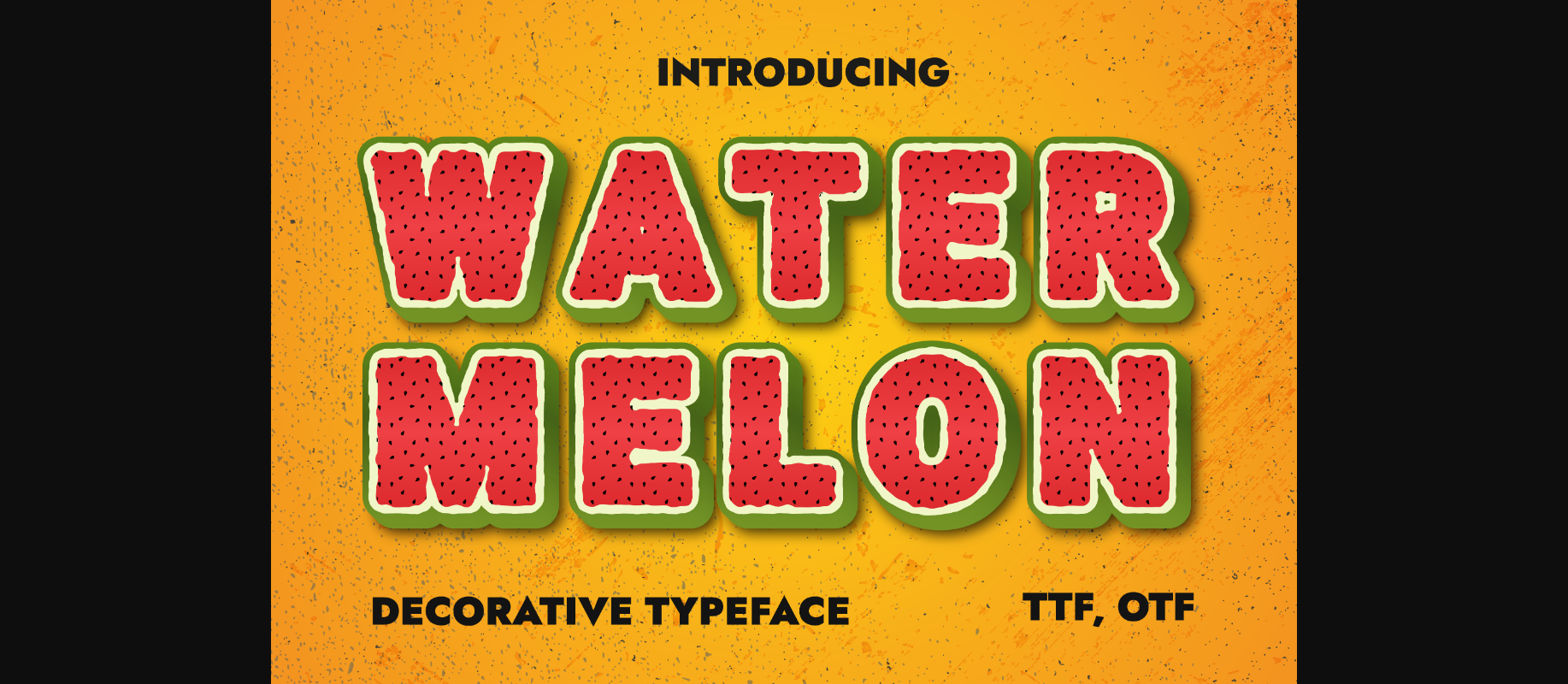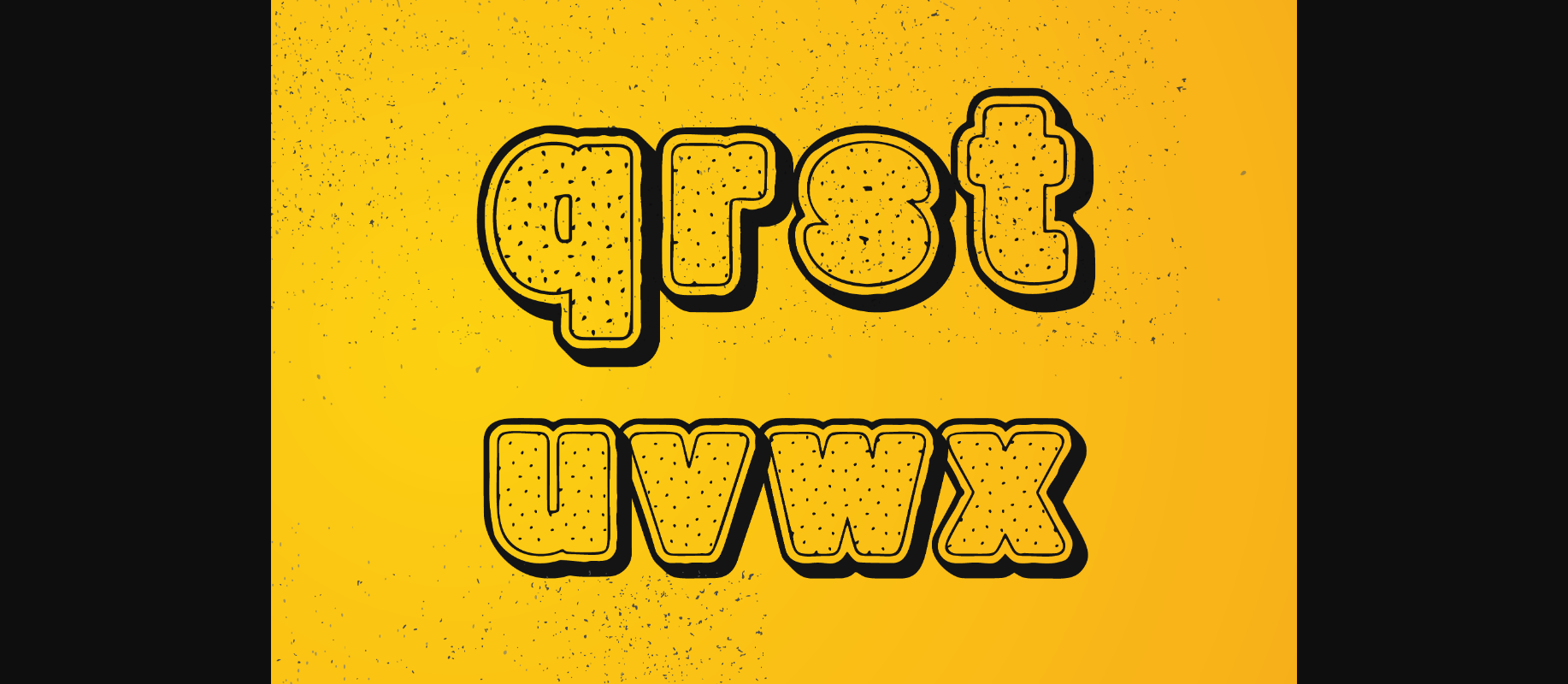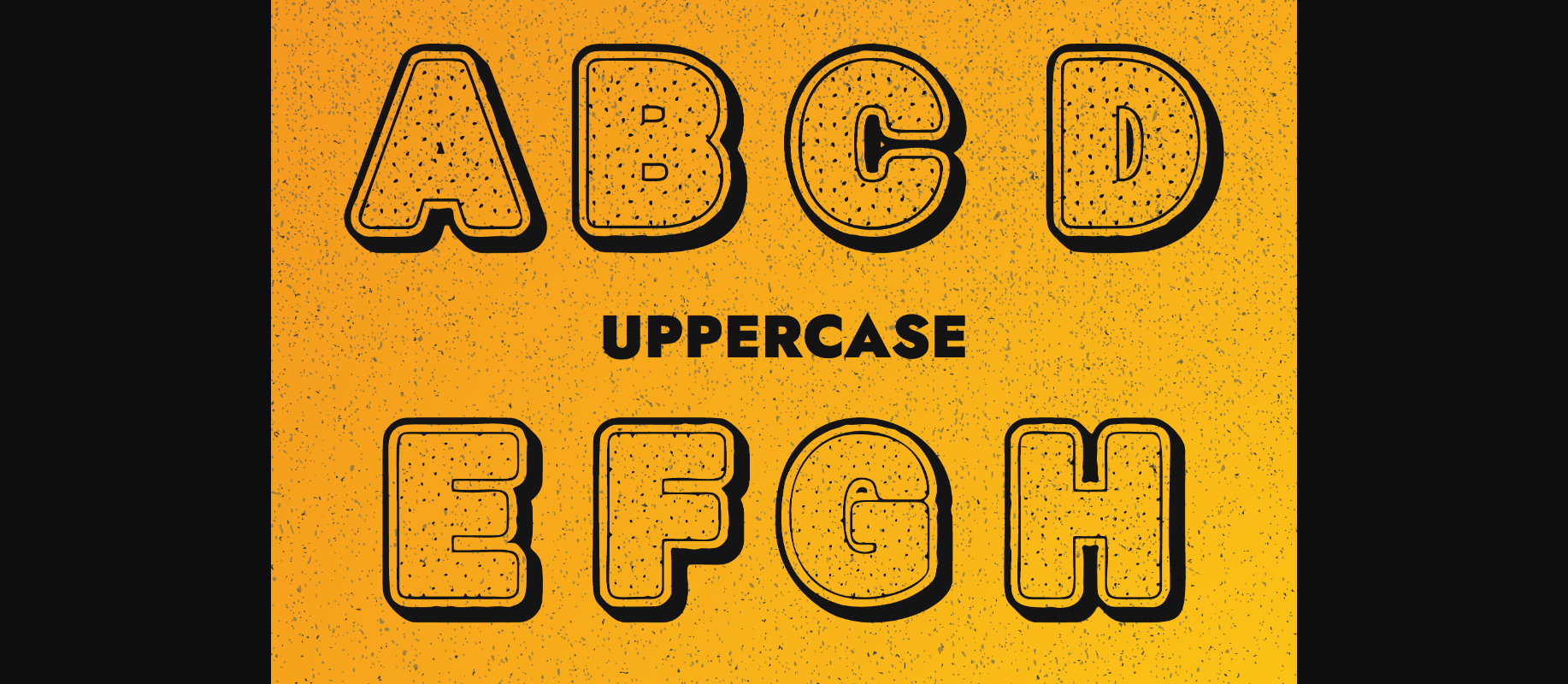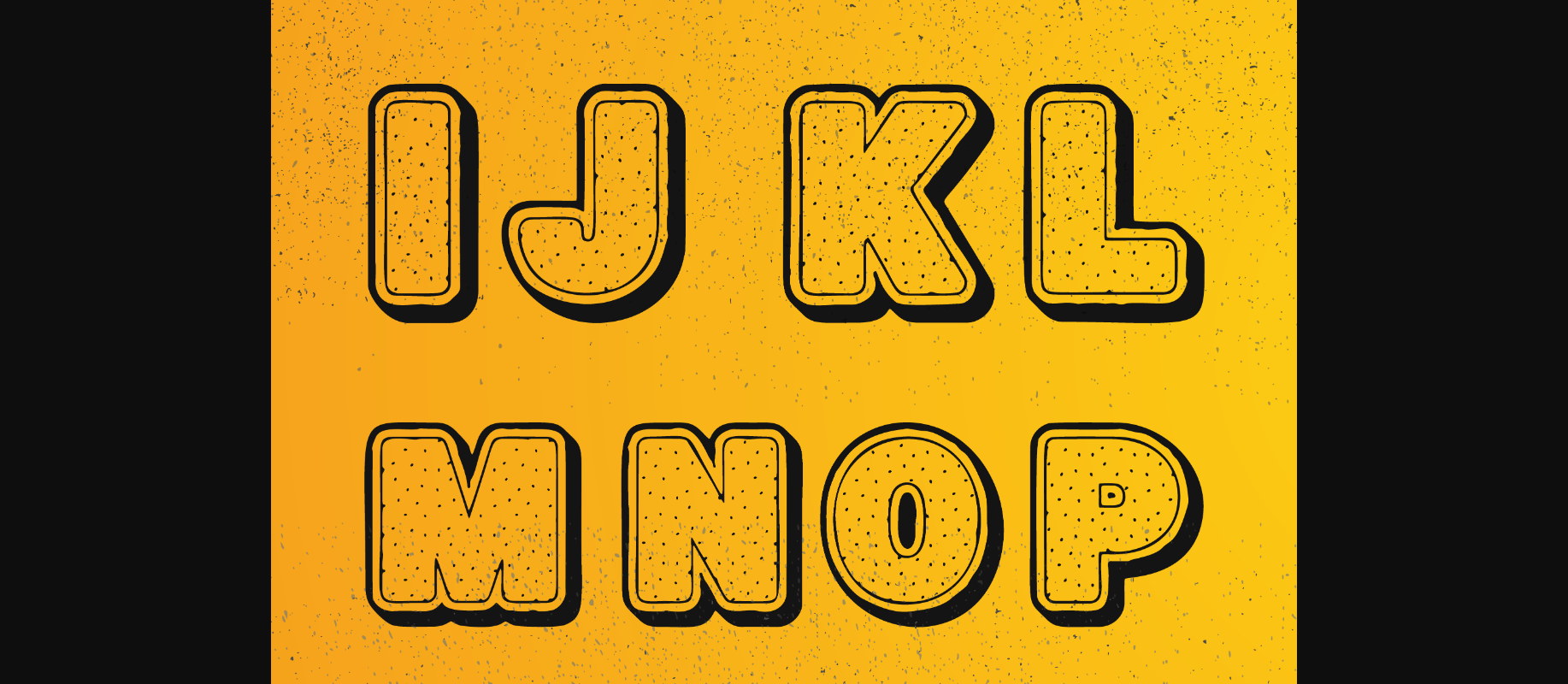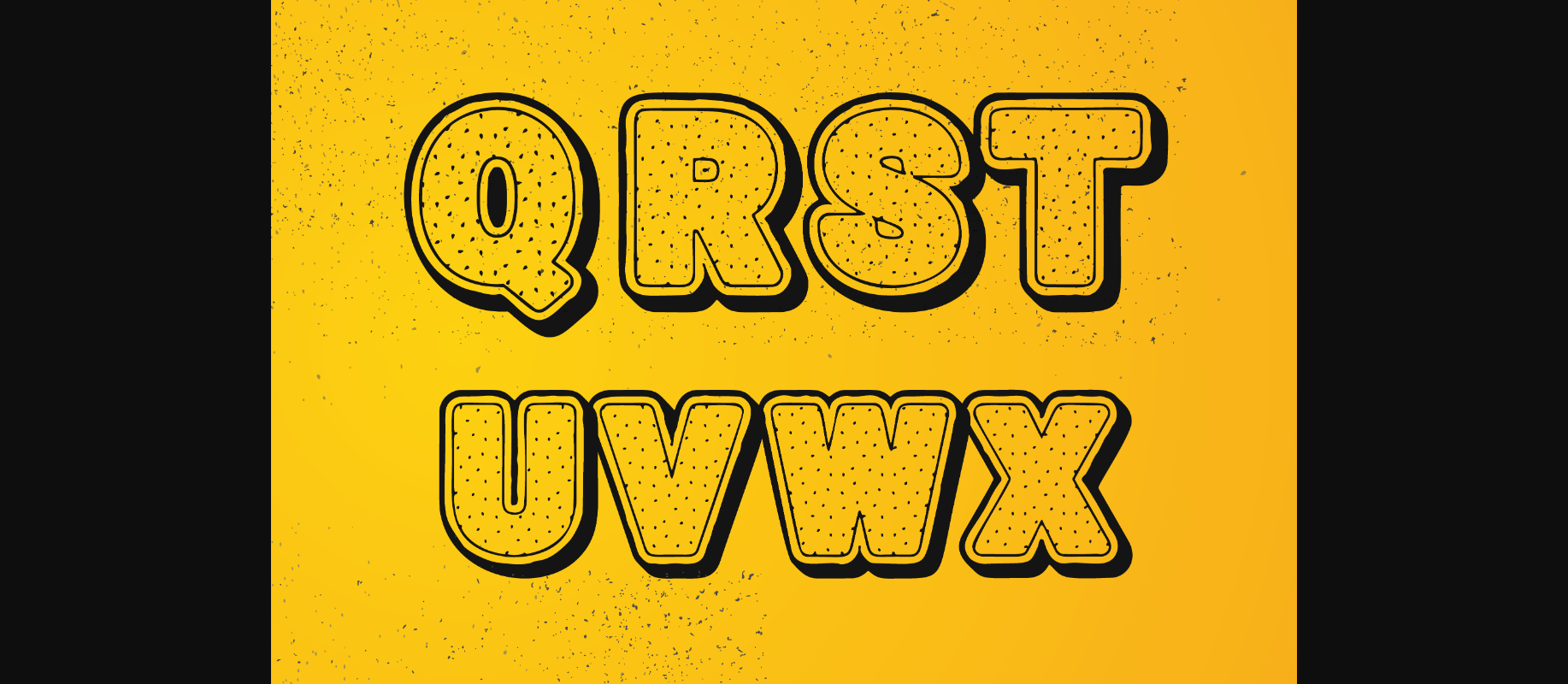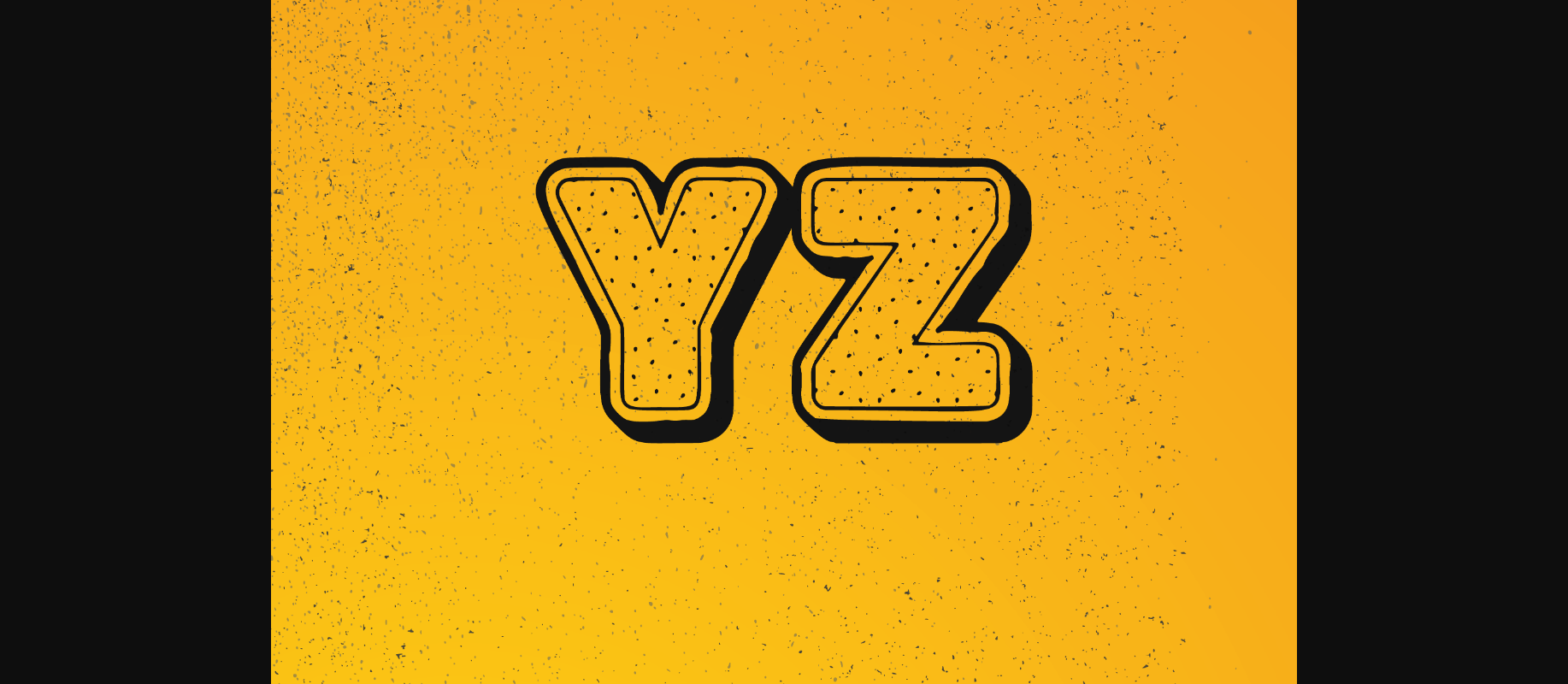
Watermelon Font
About Watermelon Font
Watermelon is a simple, funny, and cute sans serif decorative typeface, designed to help you generate up to 62 watermelon pattern decorated glyphs by typing letters and numbers. It can be used in many sectors such as packaging, social posts, magazines, book covers, etc.